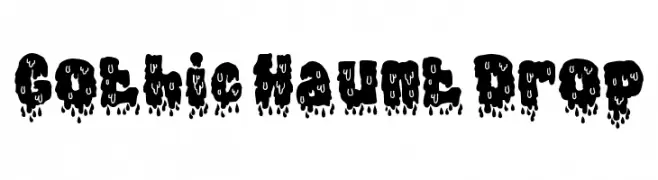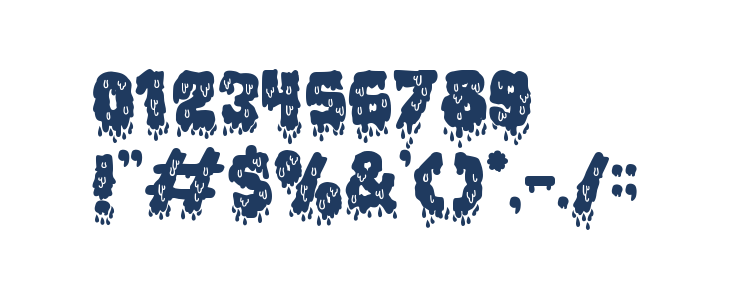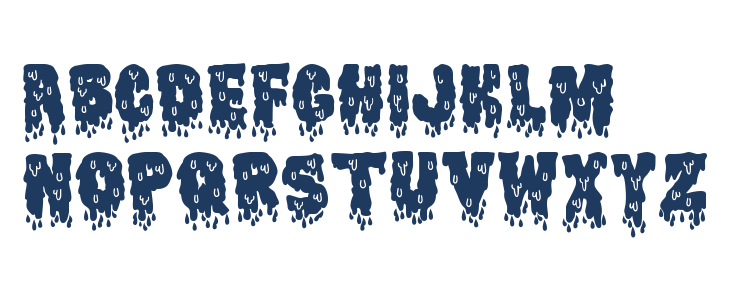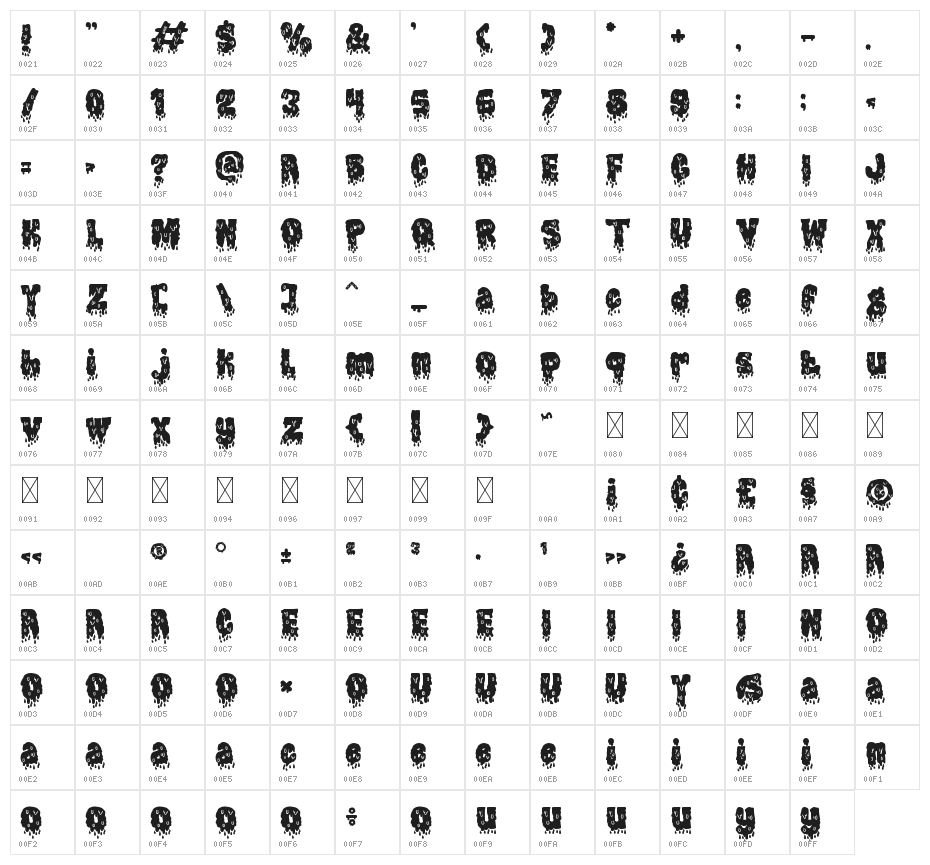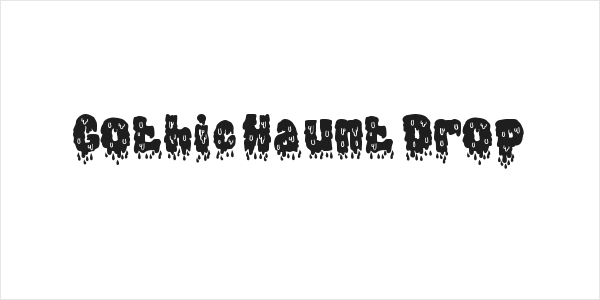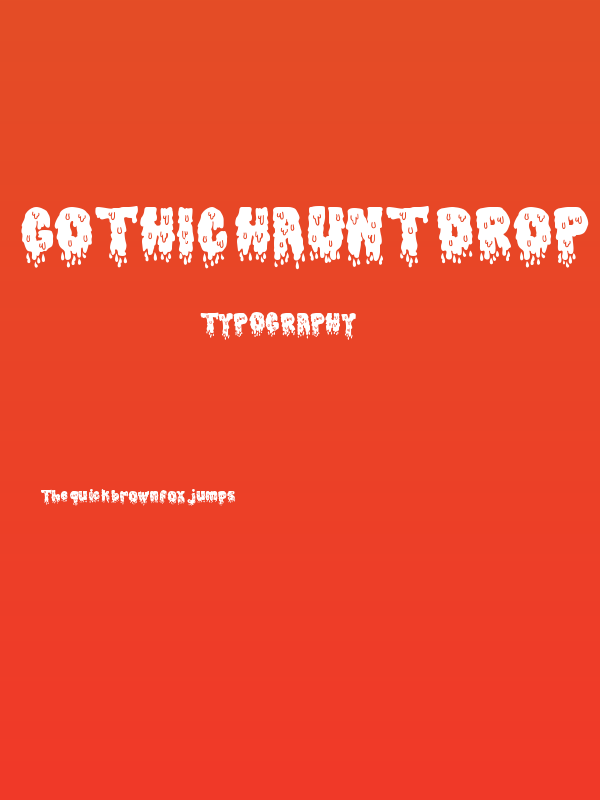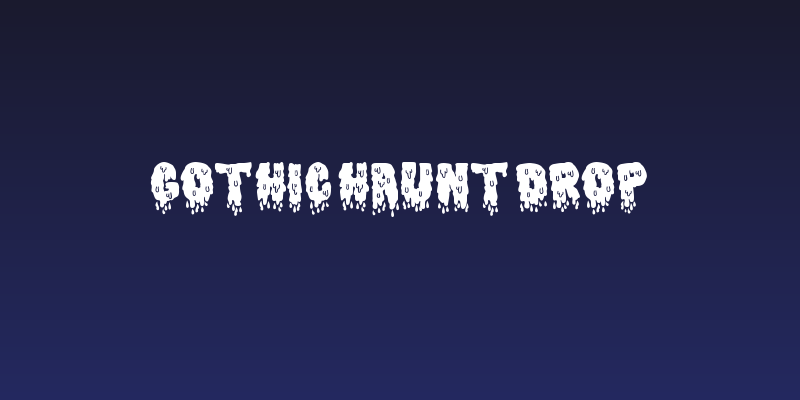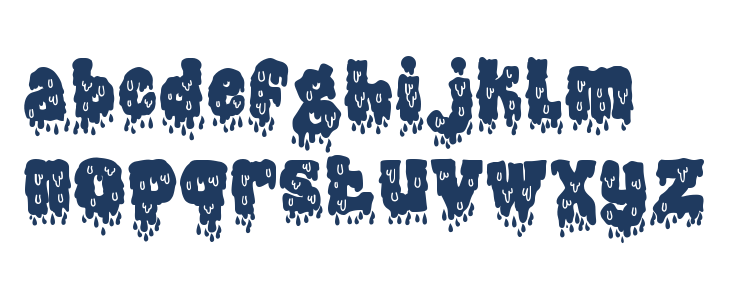
Gothic Haunt Drop Font
Gothic Haunt Drop Description
A bold, decorative display font with thick, rounded letterforms that appear to be melting or dripping, evoking a spooky or haunted effect. The characters are heavily stylized with irregular edges and pronounced droplet shapes extending downward.
| Overall Style | Decorative, Spooky, Thematic |
| Use Case | Headlines, Posters, Logos, Event Promotions |
| Proposed Projects | Halloween posters, horror movie titles, haunted house flyers, themed party invitations, spooky branding. |